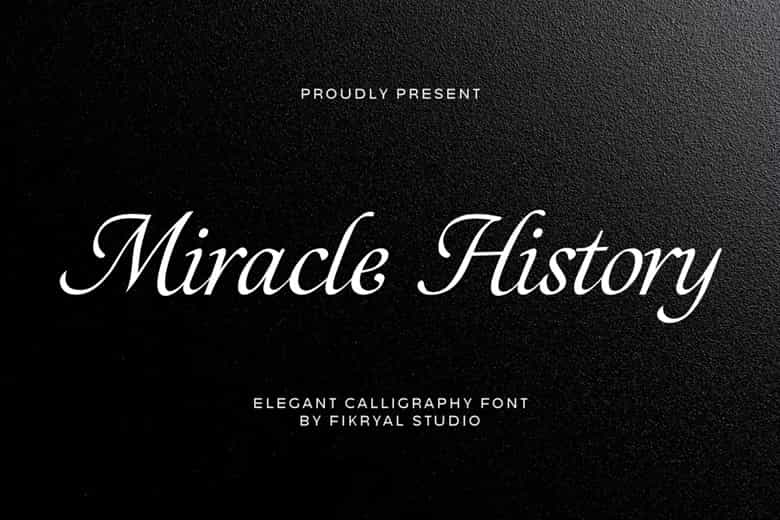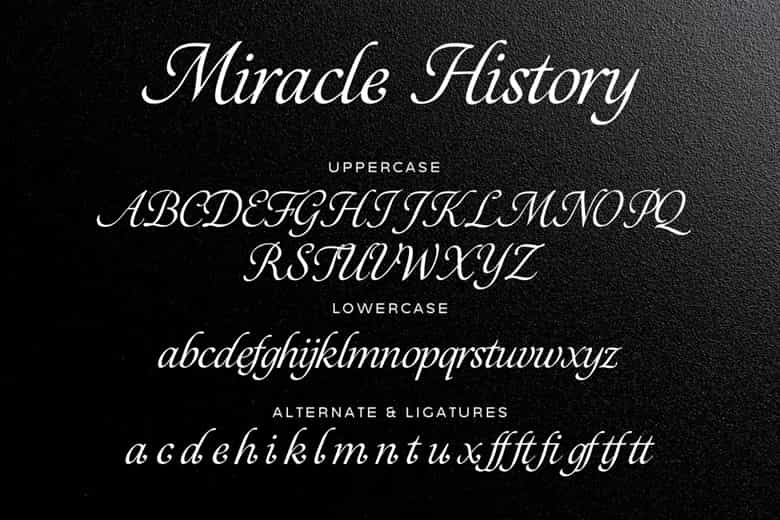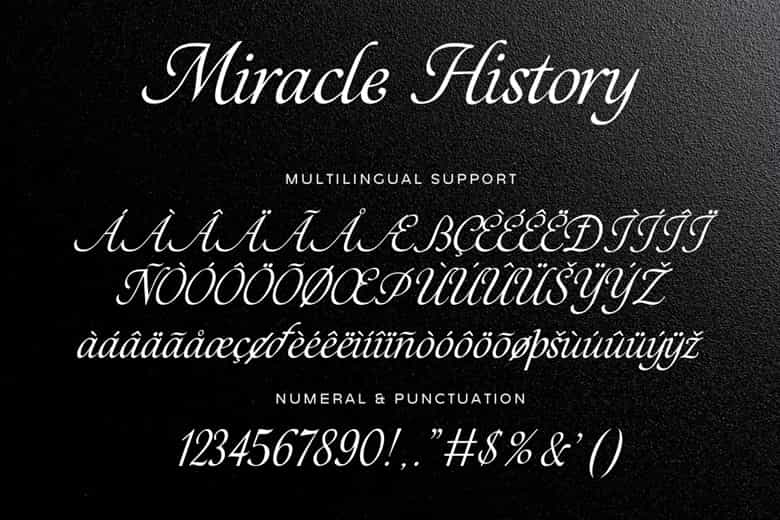
Miracle History is an elegant and modern calligraphy script typeface that brings timeless elegance to your creative projects. With its roots in classic artistry but a modern makeover, this font is meant for people who love careful, appealing and detailed work in design.